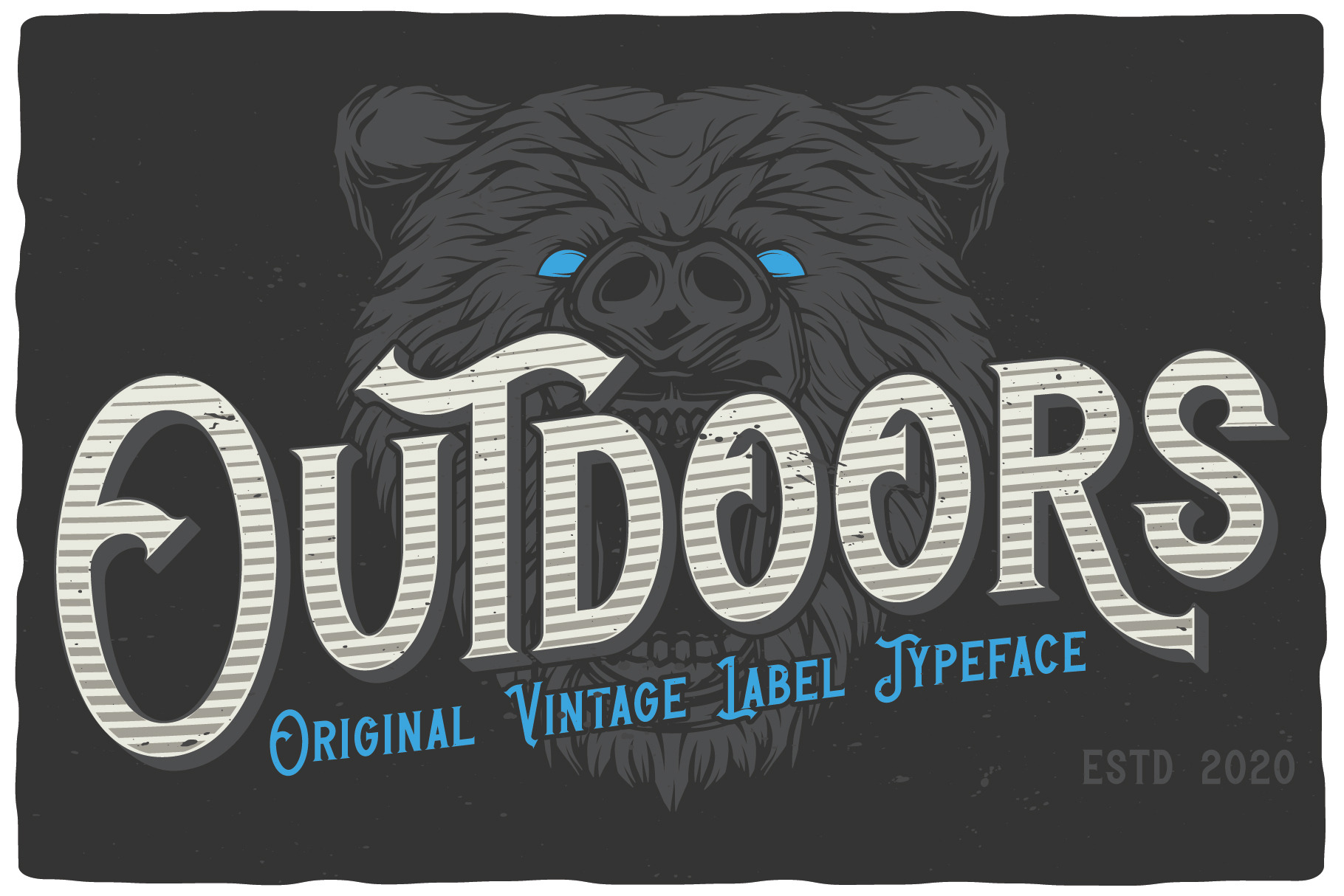
Outdoors Layered Font
Introducing a vintage label layered font named Outdoors. This strong typeface is perfect for lettering on vintage style labels, posters, t-shirts, logo etc. This set contains also bonus: 4 editable sample designs for t-shirts or posters.
- Five fonts in complect. Base, Rough, Full and 2 effect fonts - Shadow and Gradient.
- A lot of punctuation and multilingual symbols. Also alternates for all lowercase. All set you can see at the preview.